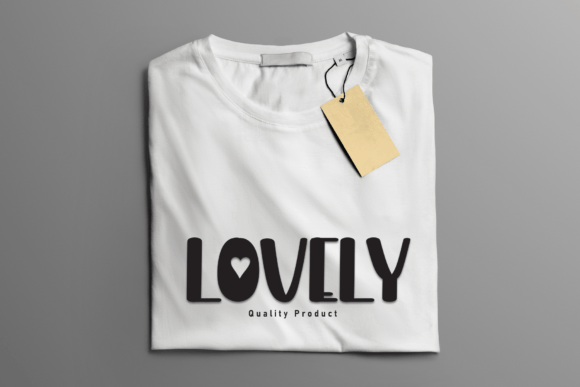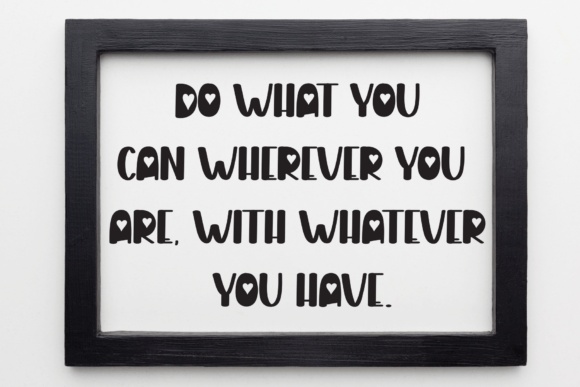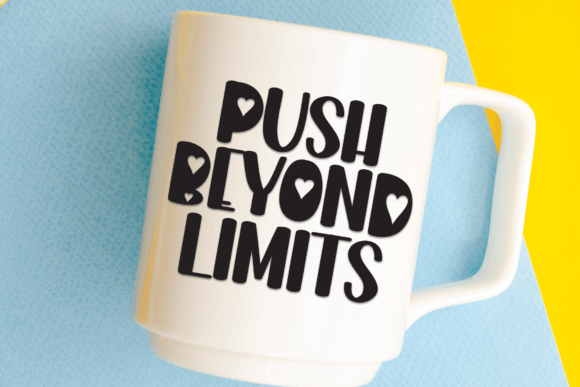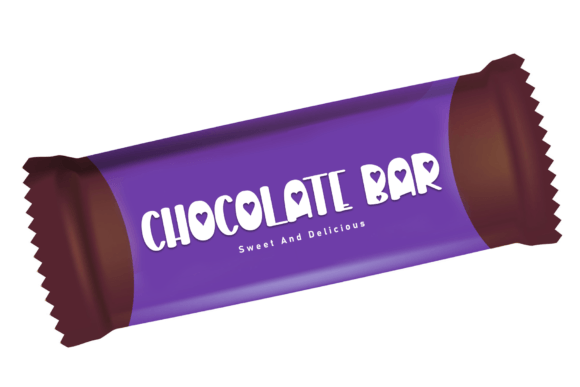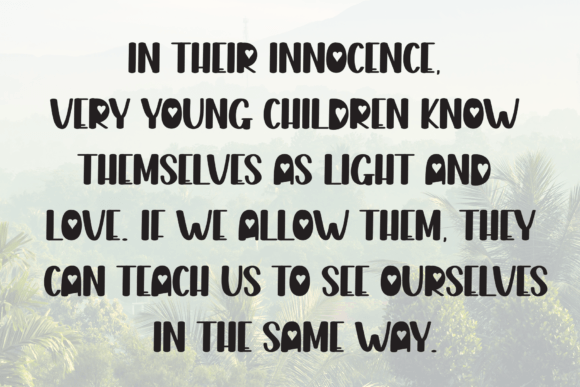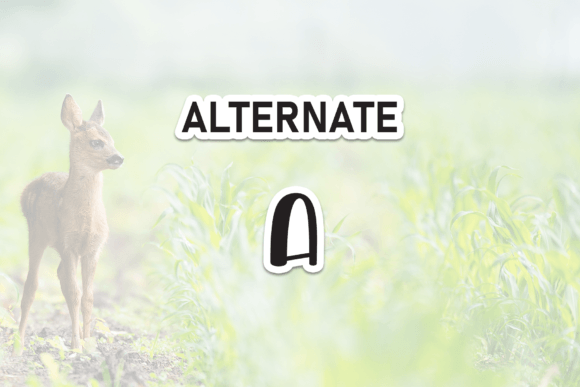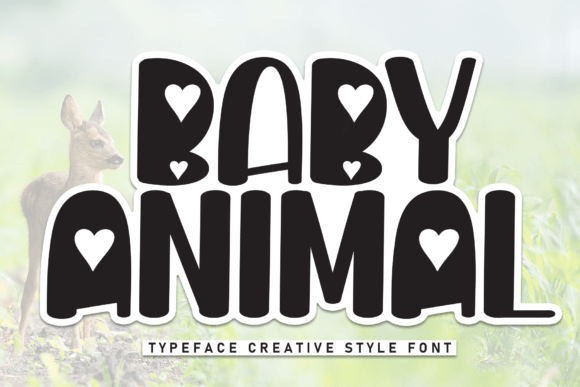
Baby Animal Font: The Ultimate Choice for Designers and Crafters
Are you looking for a font that can add a touch of sweetness and friendliness to your designs? Look no further than the Baby Animal Font! This beautiful handwritten font is perfect for designers and crafters who want to create stunning visual content that stands out from the crowd. In this article, we’ll explore the features and benefits of the Baby Animal Font, and show you how to make the most of this versatile font.
What is Baby Animal Font?
Baby Animal Font is a sweet and friendly handwritten font that is designed to bring a touch of whimsy and charm to your designs. Its natural and unique style makes it incredibly fitting to a large pool of designs, from baby shower invitations and nursery decor to branding and advertising materials. The font’s playful and carefree vibe is sure to delight audiences of all ages, making it an excellent choice for projects that require a lighthearted and approachable tone.
Key Features of Baby Animal Font
• Handwritten style: Baby Animal Font is a handwritten font that is designed to look like it was written with love and care. Its natural and fluid strokes make it perfect for creating beautiful, one-of-a-kind designs.
• Unique and distinctive: Unlike other fonts, Baby Animal Font has a unique and distinctive style that sets it apart from the rest. Its quirky and playful vibe is sure to make your designs stand out from the crowd.
• Versatile: Baby Animal Font is incredibly versatile and can be used for a wide range of design projects, from digital designs to print materials.
• Easy to read: Despite its playful and whimsical style, Baby Animal Font is easy to read and understand, making it perfect for body text and headlines.
Benefits of Using Baby Animal Font
So, why should you choose Baby Animal Font for your next design project? Here are just a few benefits of using this amazing font:
• Adds a touch of personality: Baby Animal Font adds a touch of personality and whimsy to your designs, making them more engaging and memorable.
• Perfect for kids’ designs: The font’s playful and carefree vibe makes it perfect for designs aimed at kids, such as children’s books, nursery decor, and kids’ party invitations.
• Great for branding: Baby Animal Font can be used to create unique and memorable brand identities that stand out from the crowd.
How to Use Baby Animal Font
Using Baby Animal Font is easy! Here are a few tips to get you started:
• Pair it with other fonts: Baby Animal Font looks great when paired with other fonts, such as sans-serif fonts for a modern look or script fonts for a more elegant feel.
• Experiment with colors: The font looks great in a range of colors, from bright and bold to soft and pastel.
• Use it for headlines and body text: Baby Animal Font is easy to read and can be used for both headlines and body text.
In conclusion, Baby Animal Font is a sweet and friendly handwritten font that is perfect for designers and crafters who want to add a touch of whimsy and charm to their designs. Its natural and unique style makes it incredibly versatile and easy to use, making it an excellent choice for a wide range of design projects. Whether you’re creating baby shower invitations, nursery decor, or branding materials, Baby Animal Font is sure to delight audiences of all ages.